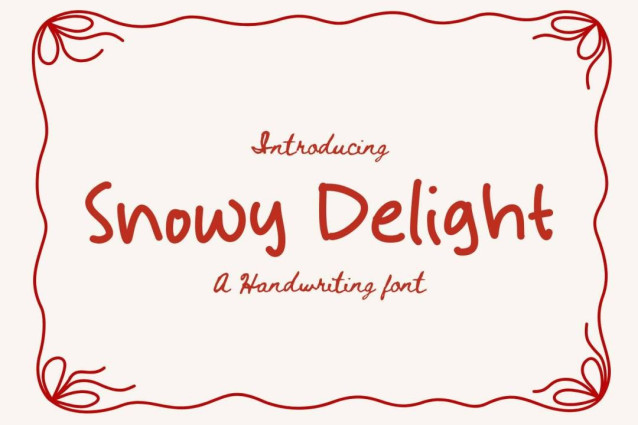
Snowy Delight Script Font
Snowy Delight Script Font is a simple and friendly handwritten font. Its natural and unique style makes it incredibly fitting to a large pool of designs. The only limit is your imagination!